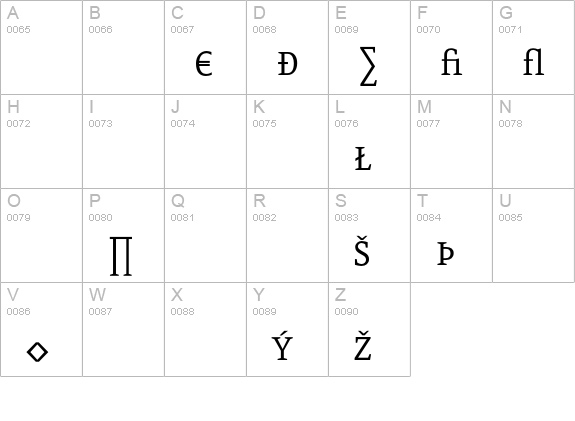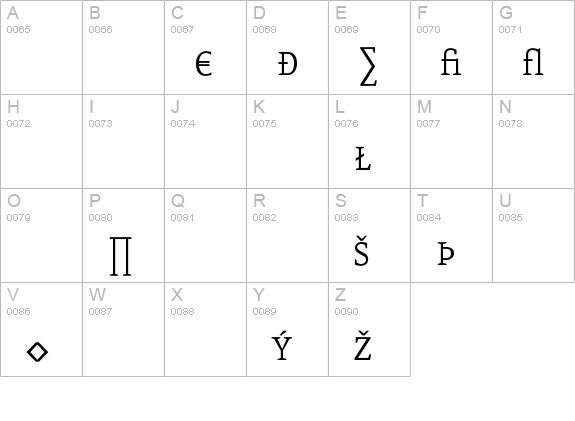
Eureka Regular Exp is the standard, neutral variant in the Eureka typeface family \xE2\x80\x94 well suited to general body text, paragraphs, and standard typographic work.
Eureka Regular Exp font is a modern and elegant typeface that is perfect for a wide range of design projects. With its clean lines and unique style, this font is sure to make your work stand out. Whether you're creating a logo, poster, or website, Eureka Regular Exp font will add a touch of sophistication to your design. The best part about Eureka Regular Exp font is that it is completely free to download. You can easily access this stunning font at FontsMarket.com and start using it in your projects right away. Don't miss out on this fantastic opportunity to enhance your designs with the beautiful Eureka Regular Exp font. Download it today and elevate your creative work to the next level!